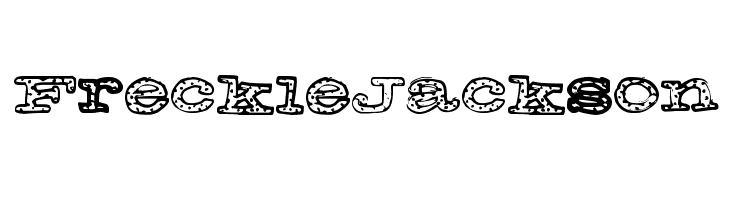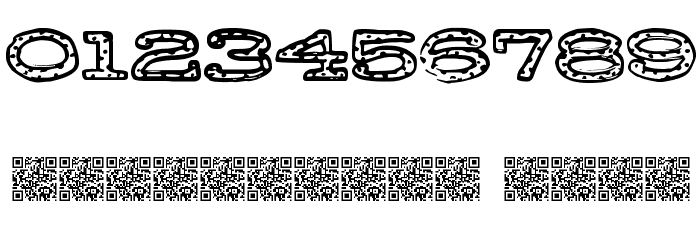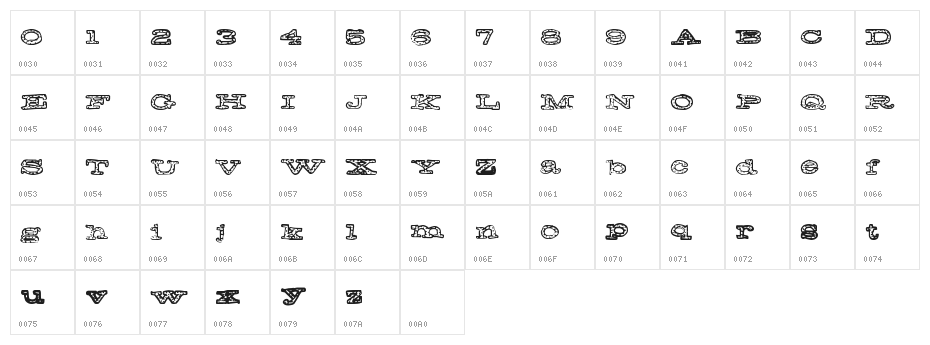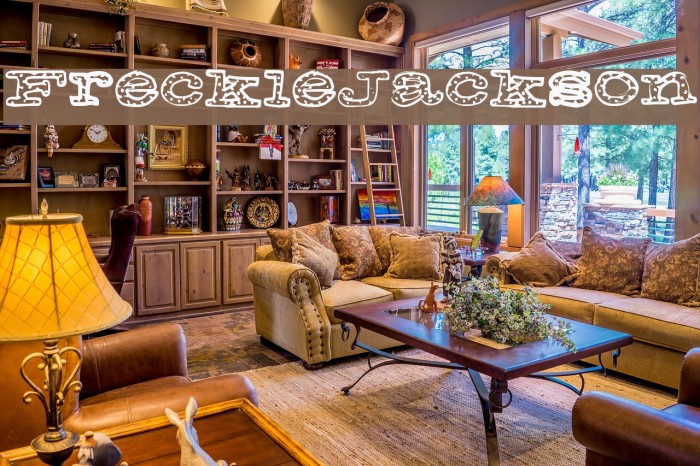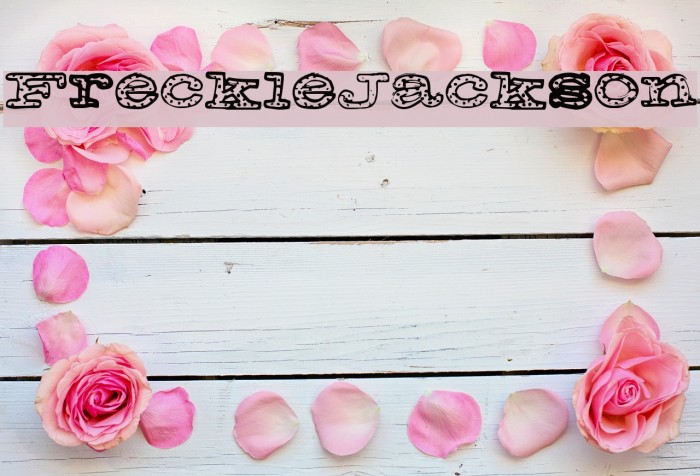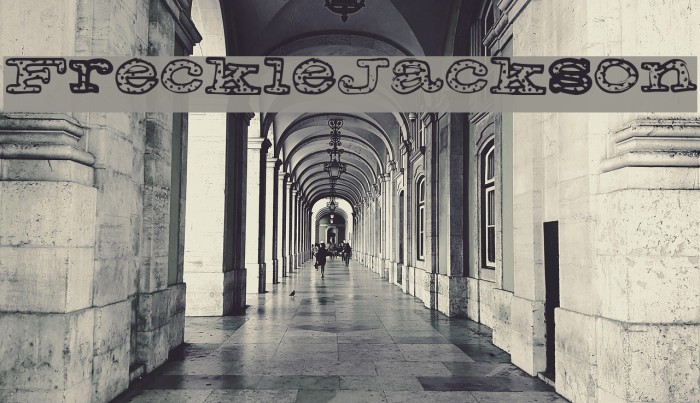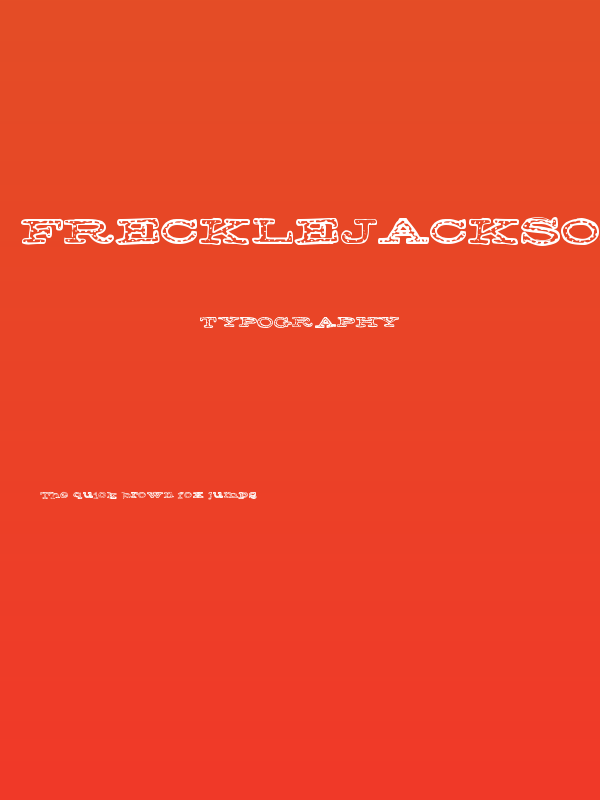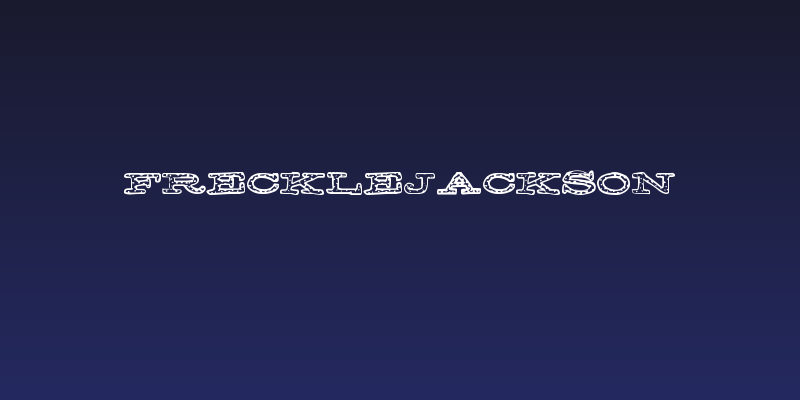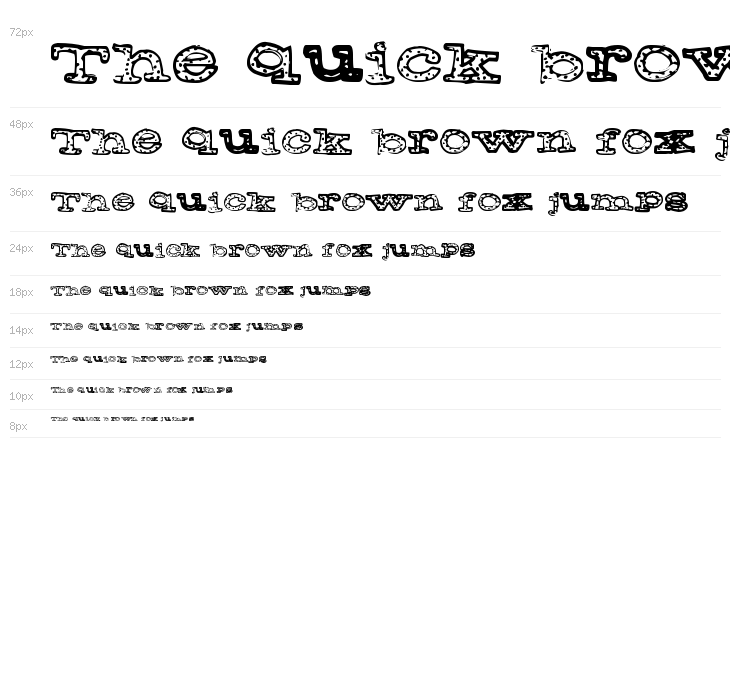
FreckleJackson Font
FreckleJackson Description
This font features a playful and quirky design with a hand-drawn aesthetic. Each character is filled with irregular, freckle-like dots that give it a unique texture and personality. The letters have a bold and slightly uneven outline, adding to the whimsical feel. The overall appearance is casual and fun, making it suitable for creative and informal projects. The numbers and special characters maintain the same playful style, ensuring consistency across all elements.